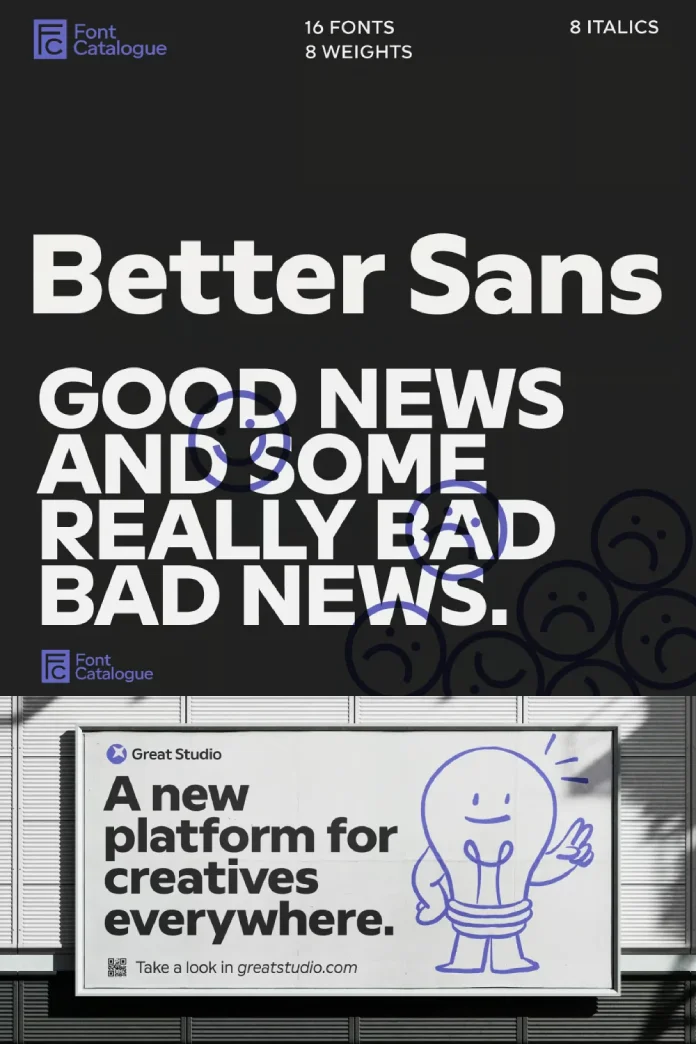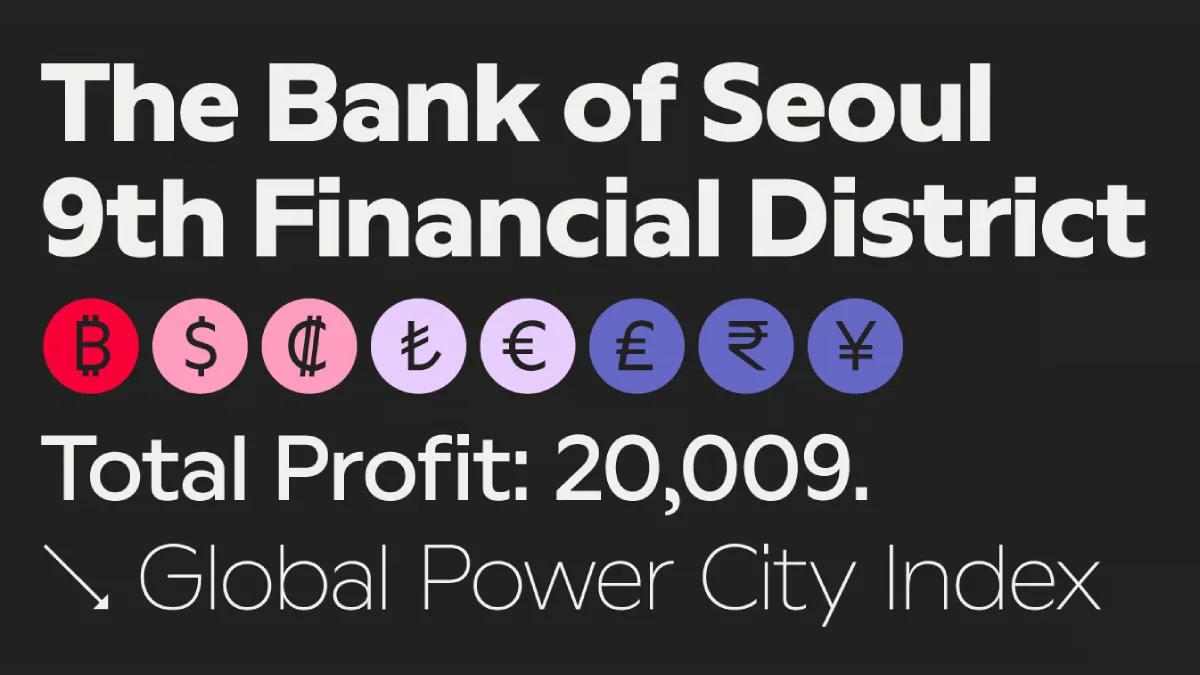
Is Better Sans the Missing Piece in Your Typeface Toolkit?
Choosing the right font feels like a big decision, doesn’t it? It’s more than just picking letters. It’s about setting a mood, conveying a message, and ensuring everything looks just right. Think about the last time you saw a design that truly caught your eye. What role did the typography play? Often, it’s the unsung hero, working quietly in the background to make everything click. You need something clear and readable, but also something with some personality. Finding that perfect balance can sometimes feel like searching for a needle in a haystack. There are so many options out there. How do you find the one that truly speaks to your project’s needs? Maybe you’re looking for something modern yet familiar, professional yet friendly. And that’s where the Better Sans font family enters the conversation. Coming from the talented team at Font Catalogue, this typeface offers a compelling blend of qualities that might just be what your designs have been waiting for. Let’s explore what makes this typeface special.
Stability Meets Familiarity: The Core of Better Sans
It’s like a reliable friend. Someone you can always count on, who makes things easier, and feels comfortable being around. That’s the kind of energy Better Sans brings to the table. Its designers, Luciano Vergara, Jorge Cisterna, Daniel Hernández, and Felipe Sanzana, crafted it with stability and precision at its heart. Yet, it doesn’t feel cold or distant. Instead, it incorporates familiar elements, making it intuitive and easy to work with. You feel like you’ve known it before, even if you’re using it for the first time. This blend makes Better Sans incredibly approachable. It’s like working with a trusted colleague who always helps your projects shine. Doesn’t that sound like a valuable asset for any designer?
The Friendly Face of Efficiency: A Closer Look at Better Sans
As a sans-serif font, the typeface naturally leans towards efficiency and clarity. This makes it inherently suitable for a wide range of applications where readability is key. But it goes beyond mere functionality. Better Sans injects a friendly, accessible feeling into its forms. Think about branding that needs to feel both modern and welcoming, or advertising copy that aims to engage rather than just inform. This is where Better Sans truly excels. It cleverly integrates geometric shapes – often associated with structure and modernity – but does so while maintaining a distinct warmth. It avoids the starkness sometimes found in purely geometric designs. How does it achieve this?
Playful Details and Distinctive Character
Look closely at Better Sans. You’ll notice subtle details that give it a unique personality. While rooted in geometric principles, certain characters stand out with a playful touch. Its round, compact forms contribute to a friendly aesthetic, making words feel cohesive and pleasant to read. Some characters have unique features that catch the eye, giving blocks of text a distinctive identity without sacrificing overall harmony. It’s these thoughtful details that prevent this typeface from being just another generic sans-serif. It has a voice. It feels considered. Have you ever found a font where small details make a big difference in the overall impression? Better Sans is a great example of that careful craft.
Versatility Across the Board: The Better Sans Font Family Weights
A single font weight rarely covers all design needs. Thankfully, Better Sans comes equipped with a perfect selection of weights. This versatility is a huge advantage. Need a strong, impactful headline for a new app or website? Better Sans has a weight for that. Need clear, legible body text for a brochure or report? It covers that too. This range allows for cohesive branding across various applications, from digital interfaces to traditional print formats. You can build a complete visual identity system using just this one font family. Its inherent horizontal alignment also contributes to its stability, making it sit comfortably on any background. This quality is particularly valuable for web use, ensuring excellent readability on screens, and for creating memorable advertising slogans that need to stand out clearly.
Why Consider Better Sans for Tech and Branding?
Given its blend of modernity, clarity, warmth, and stability, Better Sans emerges as an excellent choice, particularly for technology brands. Tech companies often strive to appear innovative yet trustworthy and user-friendly. This sans-serif typeface hits that sweet spot. Its geometric underpinnings convey precision and modernity, while its warmer, rounded aspects ensure it feels approachable and human. It’s a typeface that can help a brand leave a lasting, positive impression. Think about interfaces, websites, and marketing materials – Better Sans provides a consistent and appealing voice. Its stability and clear letterforms also make it ideal for creating impactful web downloads and instantly recognizable slogans. Could Better Sans be the font that elevates your next tech project or brand identity?
Meet the Minds Behind the Typeface
Great design often comes from collaboration. Better Sans was brought to life by a team of talented designers: Luciano Vergara, Jorge Cisterna, Daniel Hernández, and Felipe Sanzana. Hailing from the Font Catalogue foundry, their combined expertise resulted in this remarkably balanced and versatile typeface. Knowing the creators adds another layer of appreciation for the thought and skill invested in Better Sans. It’s a testament to their understanding of what designers need: a tool that is both beautiful and highly functional.
So, what’s the takeaway? Better Sans isn’t just another font. It’s a carefully crafted typographic solution. It offers reliability, a friendly disposition, and remarkable versatility. Its blend of geometric precision and approachable warmth makes it suitable for countless applications, particularly shining in branding, advertising, and digital contexts. If you’re seeking a sans-serif that feels both contemporary and comfortably familiar, Better Sans is definitely worth exploring. It might just become that reliable design friend you turn to again and again.